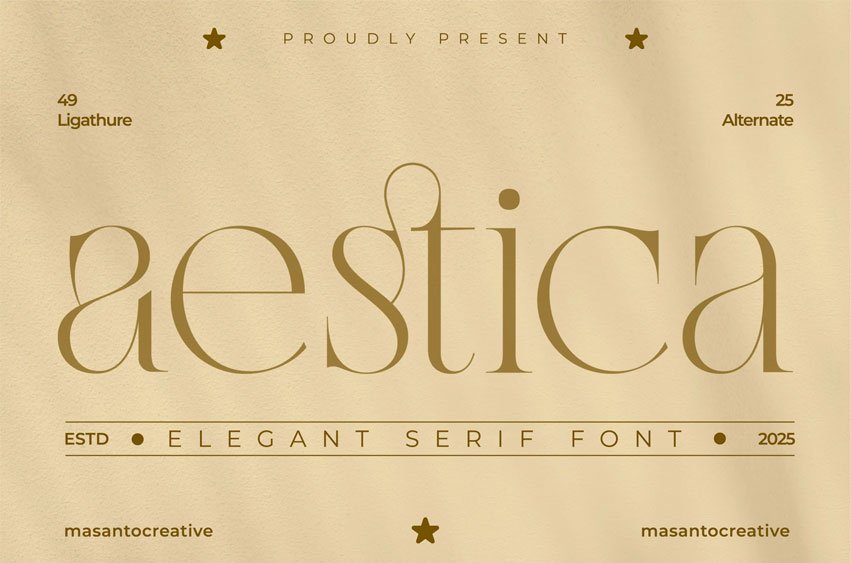
Aestica Font is an elegant serif font designed with refined curves, luxurious details, and timeless charm. Featuring 25 stylish alternates and 49 creative ligatures, this font is perfect for creating sophisticated branding, editorial layouts, wedding invitations, packaging design, and high-end logo projects. With its graceful letterforms and modern-classic aesthetics, Aestica brings a touch of luxury to any design.
Perfect for:
- Luxury branding & logo design
- Wedding stationery & invitations
- Editorial and magazine layouts
- Packaging design & product labels
- Social media templates & modern advertising
Make your project shine with Aestica – Elegant Serif Font, a timeless choice for designers who value beauty, elegance, and versatility.